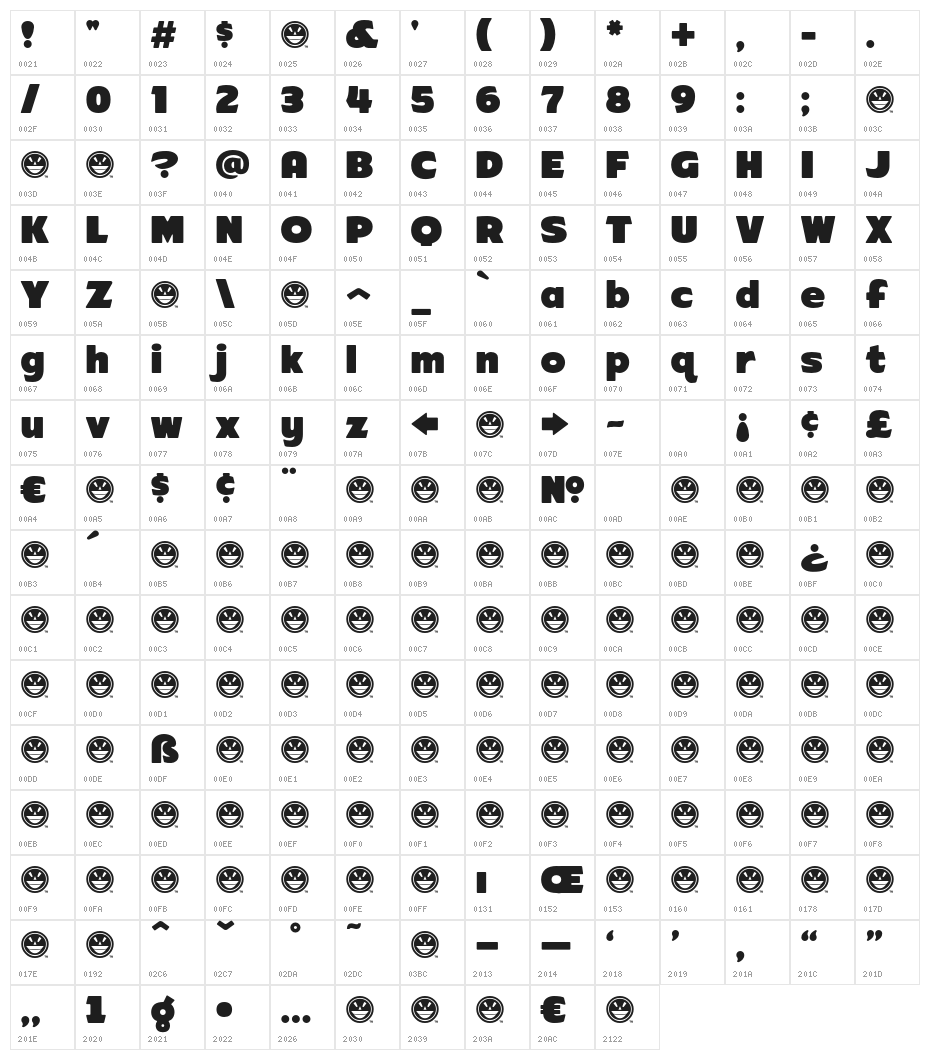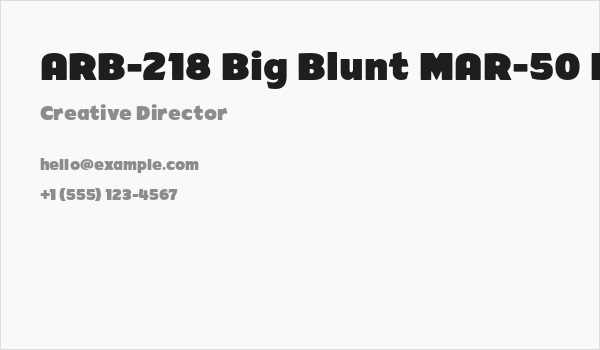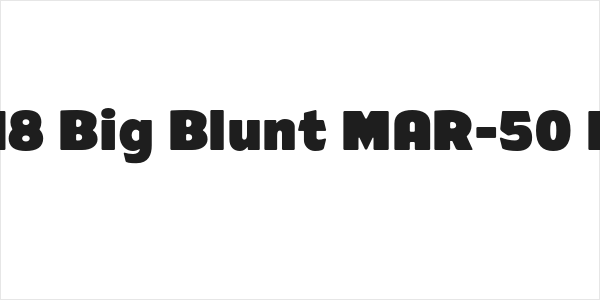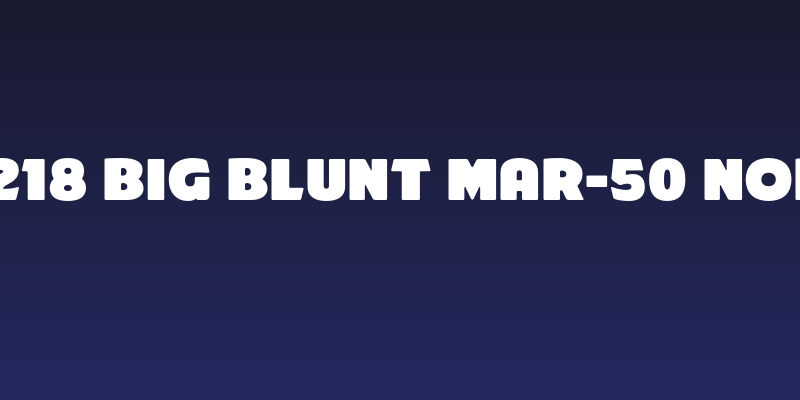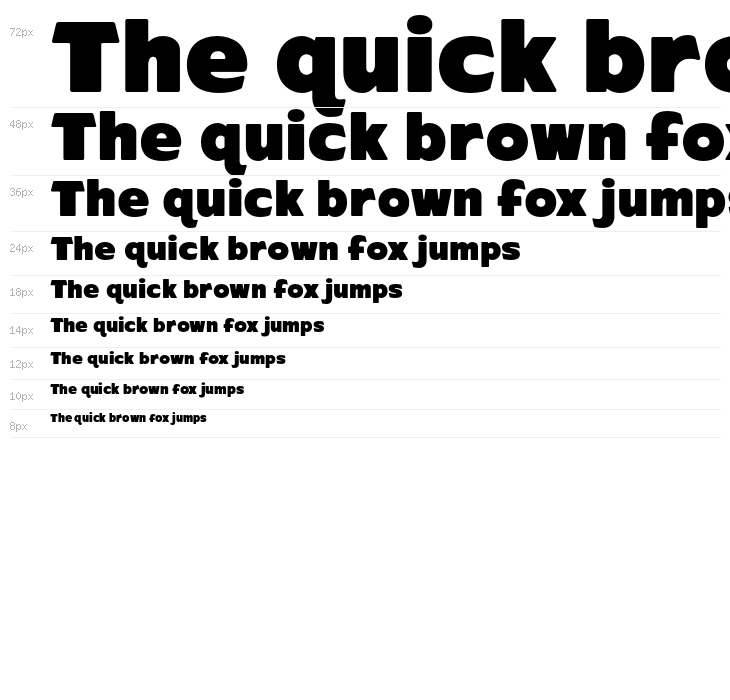
ARB-218 Big Blunt MAR-50 Normal Font
ARB-218 Big Blunt MAR-50 Normal Description
This font features bold, rounded characters with a strong presence, making it ideal for attention-grabbing designs. The letters are uniformly thick, creating a cohesive and impactful look. The rounded edges soften the overall appearance, adding a friendly and approachable feel. The numerals and special characters maintain the same bold style, ensuring consistency across all text elements. This font's design is both modern and playful, suitable for a variety of creative applications.
Proposed ProjectsIdeal for branding, posters, headlines, and advertising materials where a strong visual impact is desired.